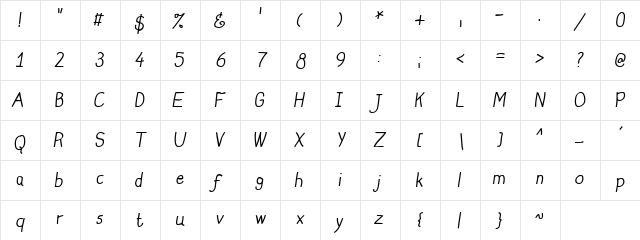
Trilok Italic
Design Context for Trilok Typeface
Trilok offers clean, dependable letterforms without strong stylistic allegiance, making it a practical choice for designers who need flexibility. The dynamic lean of this cut emphasises speed and emphasis in any layout.
Pro Tip: Use Trilok for emphasis, pull quotes, and subheadings where its slanted energy can add rhythm to the layout.